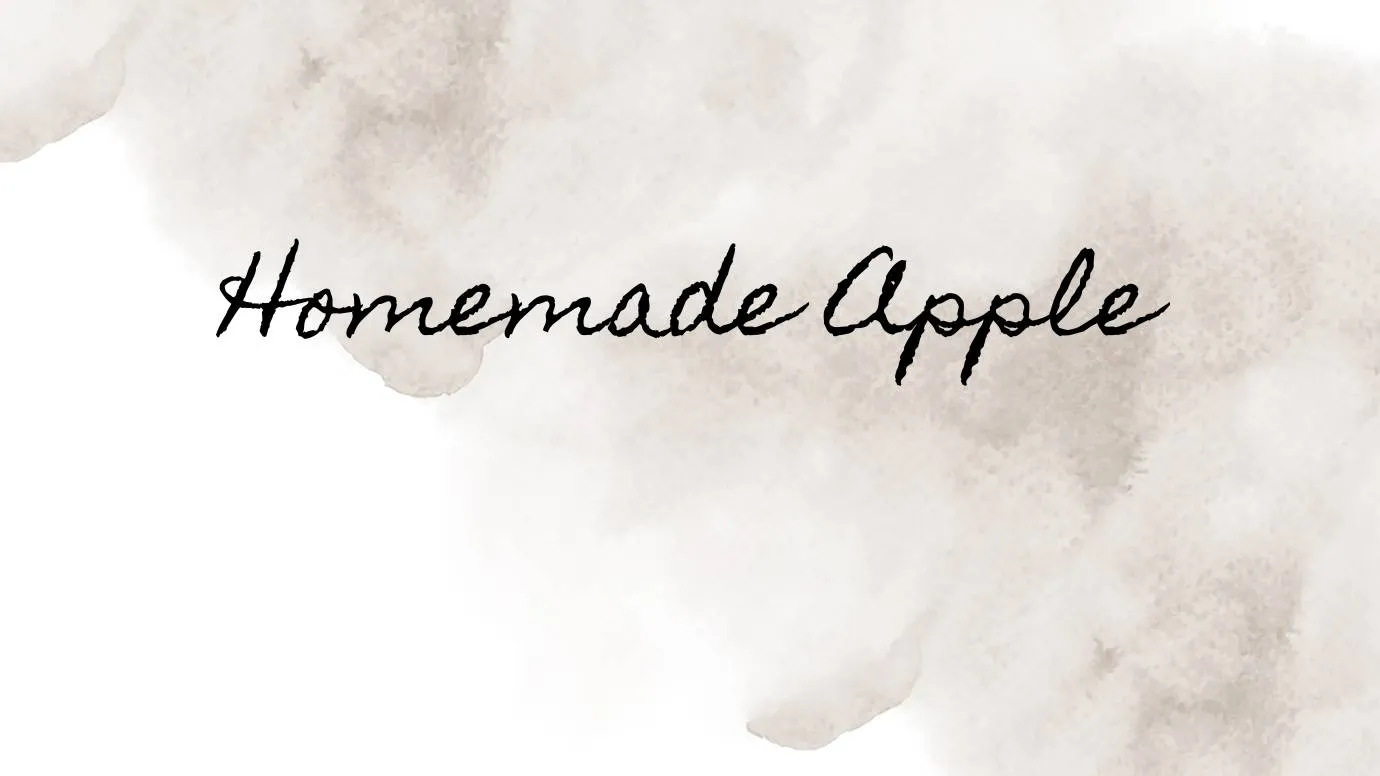
Homemade Font Family is a very amazing handwritten typeface. This amazing font was designed by Diner Inc. The look of this font is very attractive and rough. You can make both personal and commercial projects by using this font.
Homemade Font
NameHomemade Apple Font
TypeHandwritten
DesignerDiner Inc